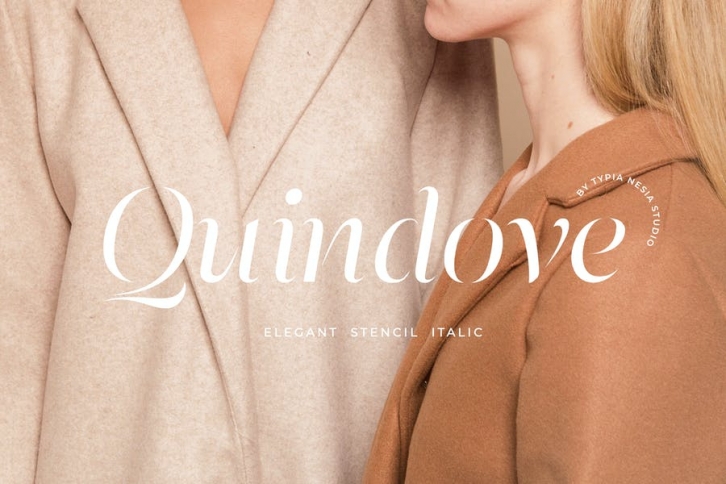
Quindove - Beauty Elegant Stencil Italic Serif - Fashion Classy Fancy Font
Quindove font comes with some ligatures, so you can combine it to make a perfect typography design. Quindove Elegant Stencil Italic Serif font is perfect for your up coming projects. Such as luxury logo and branding, classy editorial design, woman magazine, cosmetic brand, fashion promotional, art gallery branding, museum, historical of architectural, boutique branding, stationery design, blog design, modern advertising design, card invitation, art quote, home decor, book/cover title, special events and any more.